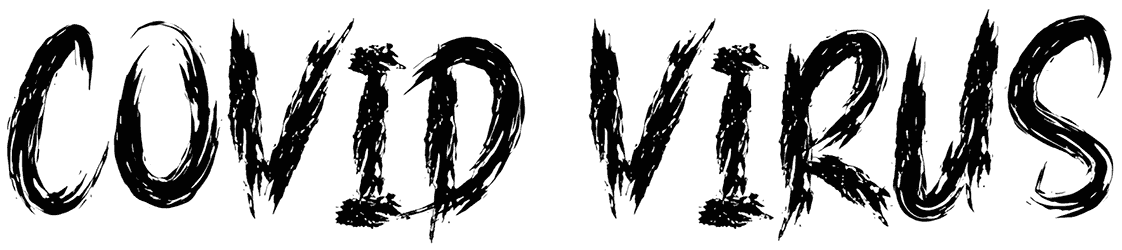
Covid Virus Font
Here at Resource Boy, you can get all the horror you need. Covid Virus is a great example of a horror font to start with, with a bold and scratch letter design to give you a sense of frightened.
The only thing that this eroded font lacks is the lowercase, but the rest of the collection is awesome enough for you to make lots of artwork from book covers to movie titles and game posters. All of this is only possible on our website